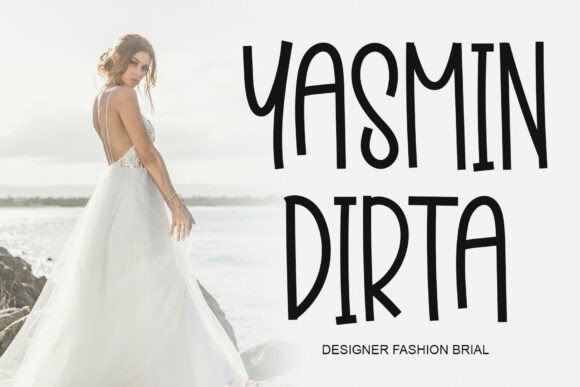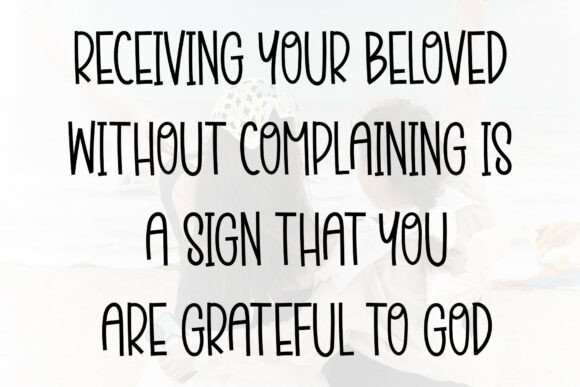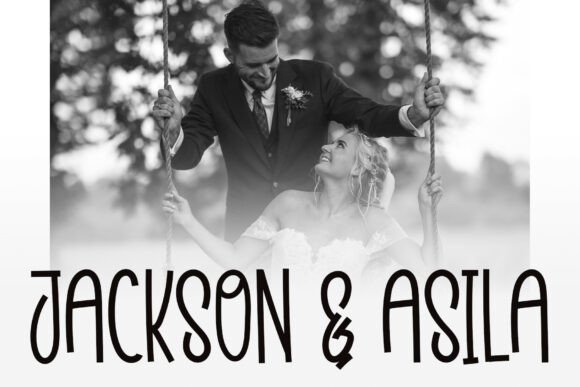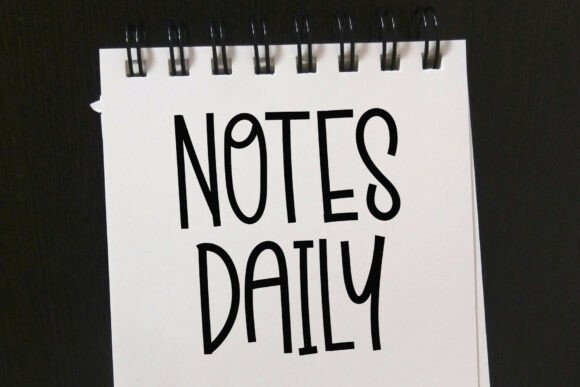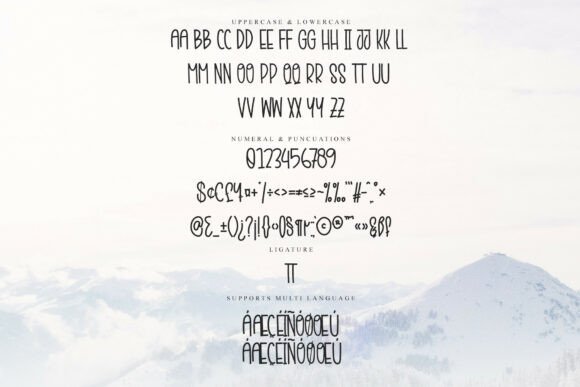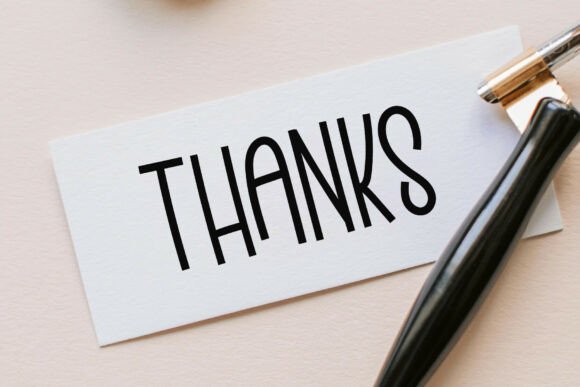
Introducing Black Thick Font: Elevate Your Designs with Elegance and Personality
In the world of typography, a font can make or break a design. For designers and crafters looking to add a touch of sophistication and modernity to their projects, Black Thick Font is an exceptional choice. This beautifully crafted display handwriting font seamlessly blends elegance with a contemporary, artistic flair, making it perfect for those who want to create stunning visual impressions.
The Characteristics of Black Thick Font
Black Thick Font is distinguished by its flowing strokes and well-balanced curves, which contribute to its sophisticated yet approachable feel. The font’s design is a masterful blend of traditional elegance and modern simplicity, making it versatile enough to be used in a variety of design contexts. Whether you’re working on a branding project, a website design, or crafting unique digital content, Black Thick Font offers the perfect combination of class and personality.
Why Choose Black Thick Font?
- Elegance and Sophistication: Black Thick Font exudes a sense of luxury and refinement, making it ideal for high-end branding, advertising, and editorial designs.
- Modern and Artistic Touch: Its contemporary design ensures that your projects stand out with a fresh and modern look, appealing to audiences who appreciate artistic flair.
- Versatility: The font’s adaptability makes it suitable for a wide range of applications, from digital media to print materials.
- Approachability: Despite its elegant appearance, Black Thick Font maintains a friendly and approachable feel, making it perfect for designs that aim to connect with their audience on a personal level.
Applications of Black Thick Font
The versatility of Black Thick Font means it can be used in numerous design projects. Here are some of the most popular applications:
- Branding and Logos: Create memorable and impactful brand identities with a font that commands attention and conveys sophistication.
- Website Design: Enhance your website’s visual appeal with a font that is both elegant and easy to read, improving user experience.
- Digital Marketing Materials: From social media graphics to email newsletters, Black Thick Font can help your marketing materials stand out.
- Print Materials: Use it for brochures, posters, and business cards to add a touch of class and professionalism.
Tips for Using Black Thick Font Effectively
To maximize the impact of Black Thick Font in your designs, consider the following tips:
- Pair with Simplicity: Combine Black Thick Font with simpler fonts to create visual contrast and hierarchy in your designs.
- Consider Size and Weight: Experiment with different sizes and weights to ensure your text is readable and visually appealing.
- Use for Headings and Titles: Its elegant and modern look makes it perfect for headings and titles, drawing attention without overwhelming the content.
Black Thick Font is a powerful tool for designers and crafters aiming to infuse their projects with elegance, modernity, and personality. Its unique blend of sophistication and approachability makes it an excellent choice for a wide range of design applications. By incorporating Black Thick Font into your typography arsenal, you’ll be well-equipped to create stunning, memorable designs that leave a lasting impression on your audience.